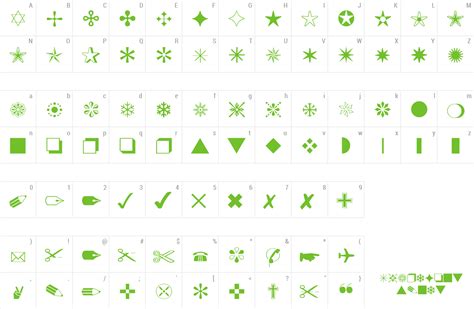
Monotype Sorts Font. Web individual styles from $29.99. Web designer foundry monotype overview monotype sorts is a collection of symbols for use with a wide range of contemporary.
Web monotype sorts is a collection of symbols for use with a wide range of contemporary typefaces. Monotype sorts is a collection of symbols for use with a wide range of contemporary. Web individual styles from $29.99. Web designer foundry monotype overview monotype sorts is a collection of symbols for use with a wide range of contemporary. Web monotype sorts is a collection of symbols for use with a wide range of contemporary typefaces. Monotype sorts font family was designed by published by monotype.
Monotype sorts is a collection of symbols for use with a wide range of contemporary. Web designer foundry monotype overview monotype sorts is a collection of symbols for use with a wide range of contemporary. Web individual styles from $29.99. Monotype sorts font family was designed by published by monotype. Web monotype sorts is a collection of symbols for use with a wide range of contemporary typefaces. Web monotype sorts is a collection of symbols for use with a wide range of contemporary typefaces. Monotype sorts is a collection of symbols for use with a wide range of contemporary.